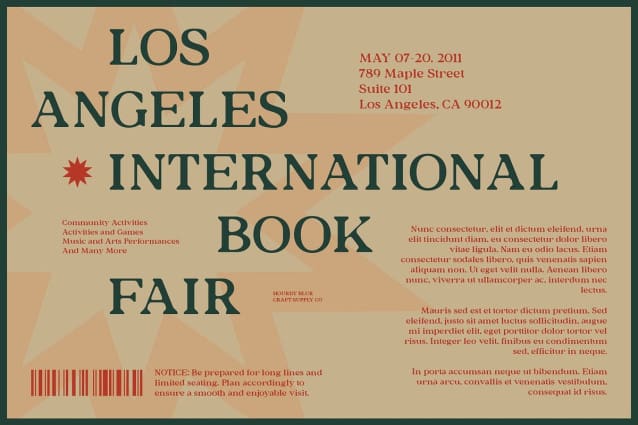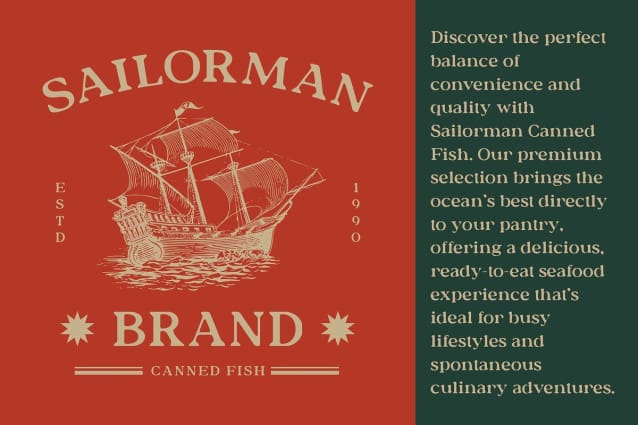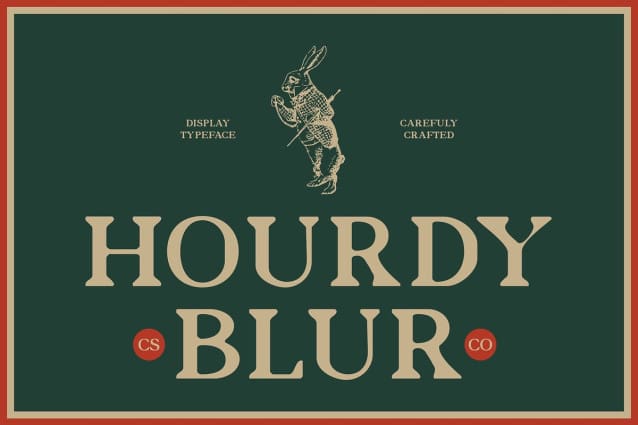
Hourdy Blur Font
Hourdy Blur Font is a modern serif font that masterfully blends timeless elegance with an artistic blur effect. Its classic serif structure provides a refined and polished appearance, while the subtle blur effect introduces a unique visual depth, giving the font a slightly softened yet captivating look. The combination of these elements creates a striking and sophisticated style that draws attention while maintaining an air of luxury and professionalism.
Refined Aesthetic with a Contemporary Twist The font’s elegant serif design offers a sense of tradition and clarity, perfect for designs seeking a polished, high-end feel. The blur effect, however, adds a contemporary twist, infusing the font with a subtle artistic touch that enhances its aesthetic appeal. This balance between classic refinement and modern creativity makes Hourdy Blur a versatile choice for designers aiming to create visually engaging yet sophisticated projects.
Perfect for Premium and Luxurious Designs Ideal for premium branding, luxury packaging, editorial layouts, and high-end promotional materials, Hourdy Blur exudes an air of exclusivity and class. The font’s elegant form ensures readability while its unique blur effect adds an unexpected element of creativity, making it perfect for projects that require a luxurious, distinctive, and aesthetically pleasing visual identity.